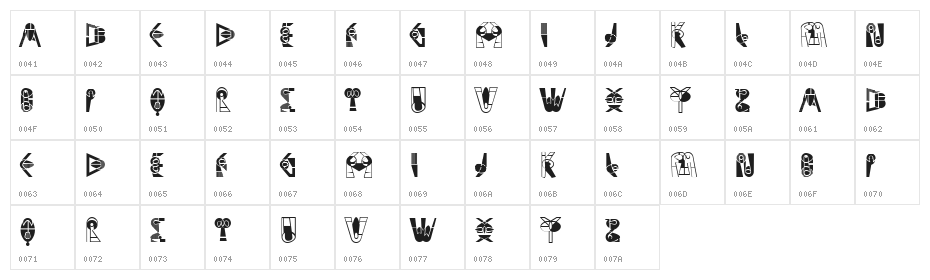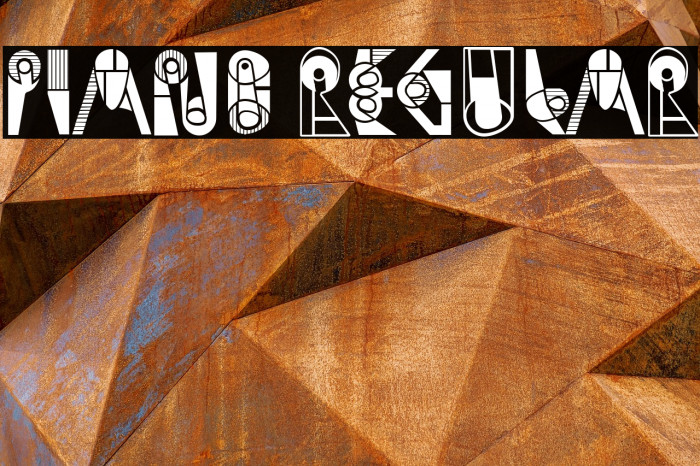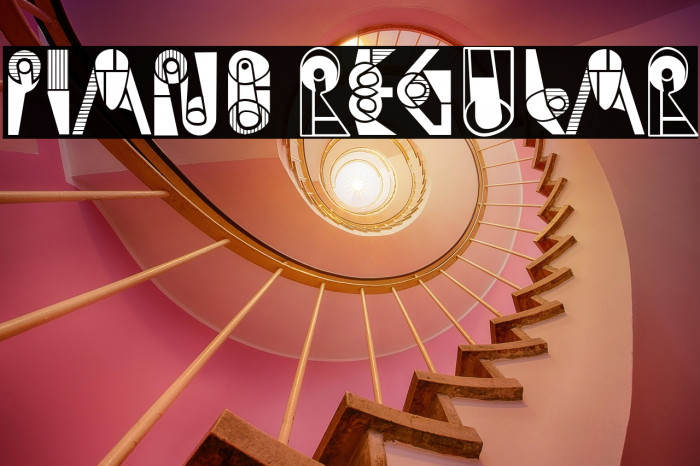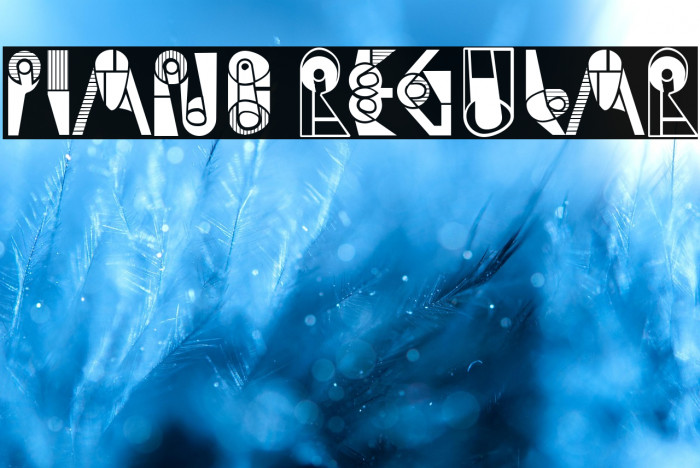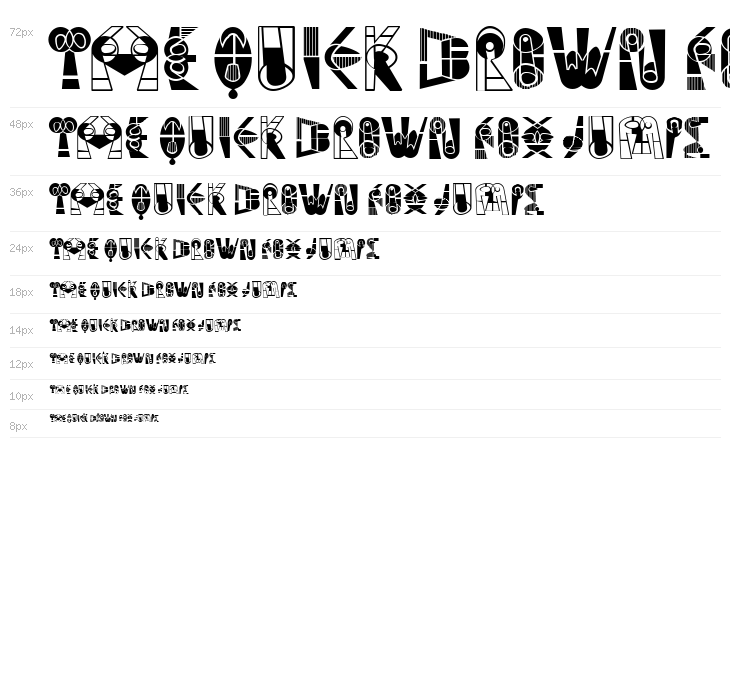
Piano Regular Font
Piano Regular Description
This font is a highly decorative and artistic typeface that combines geometric shapes with intricate patterns. Each character is uniquely designed with a mix of solid and outlined elements, creating a visually striking appearance. The use of bold lines and contrasting fills gives it a dynamic and modern feel. The font's playful and abstract style makes it stand out, with each letter featuring distinct design elements such as stripes, circles, and angular forms. This typeface is perfect for creative projects that require a bold and unconventional look.
| Proposed Projects | Ideal for posters, album covers, branding, and any project that needs a creative and eye-catching typeface. |